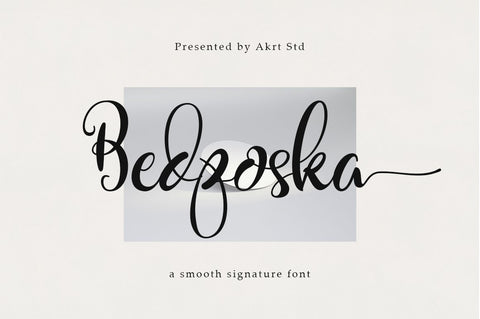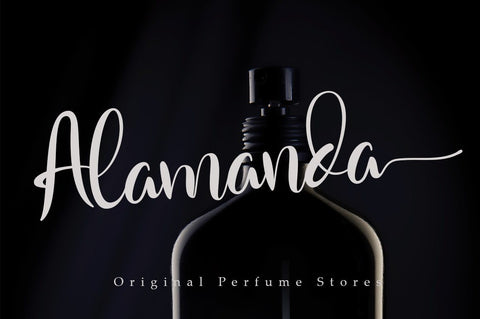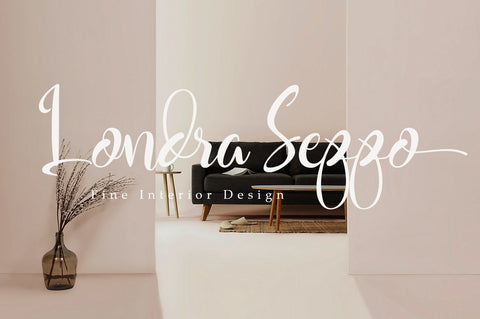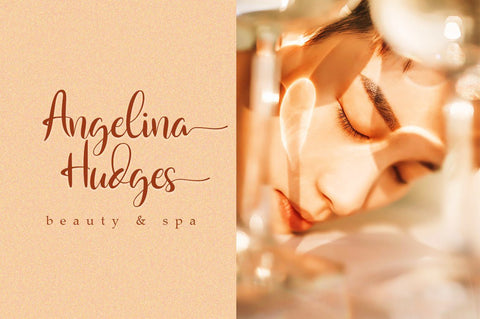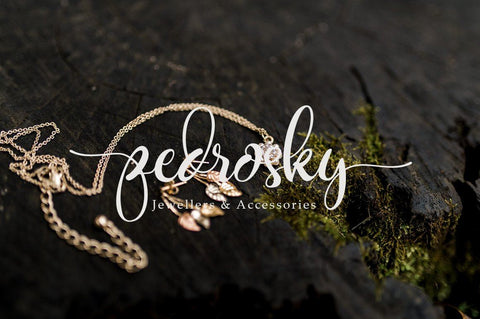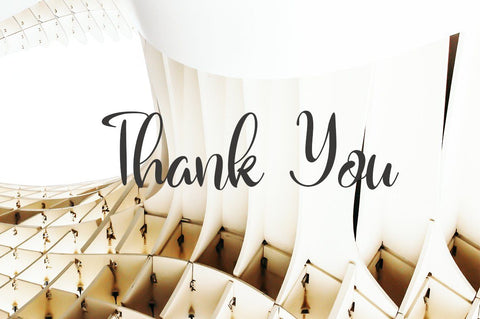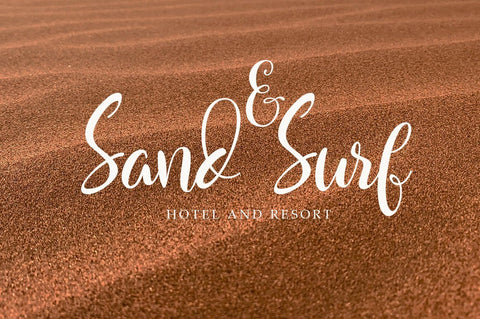
Bedposka smooth signature font
Bedposka is an attractive signature font with an elegant style that gives it the best look.
Bedposka is an elegant signature. It is elegant, feminine and noble, while maintaining a friendly atmosphere. Bedposka is versatile and is perfect for fashion, branding, trending blogs, bridal boutiques or any business that wants to look luxurious, chic and elegant.
Bedposka has a variety of stylistic features, making it ideal for creating original and functional designs. It has extensive language support and many ligatures, alternatives, and style sets to add visual interest to each letter.